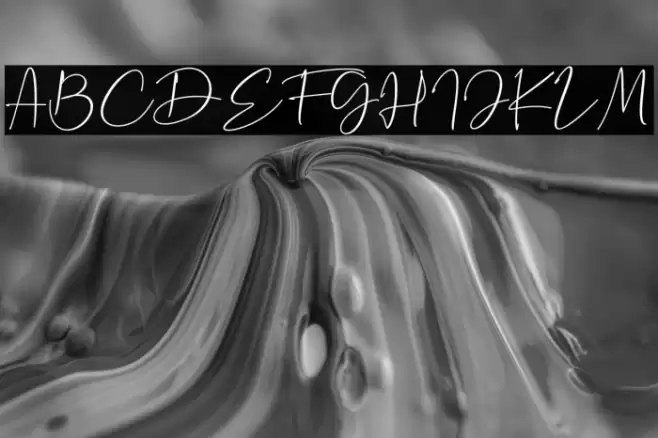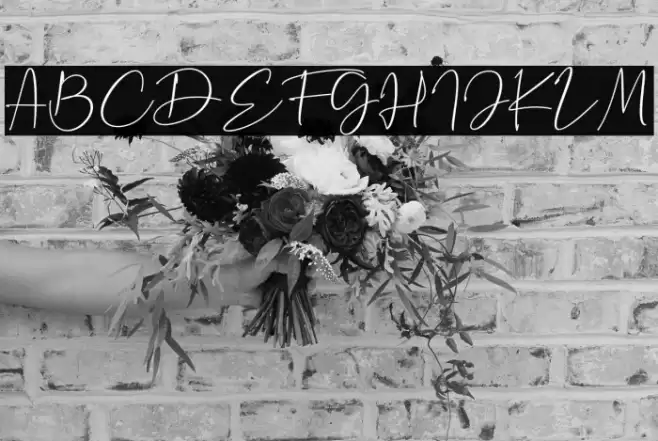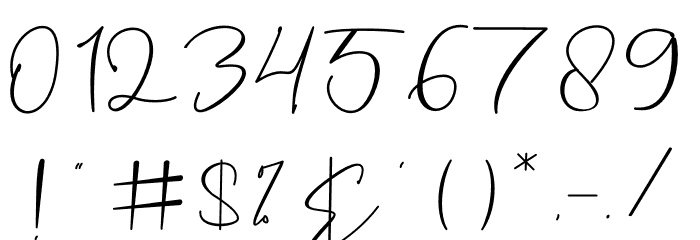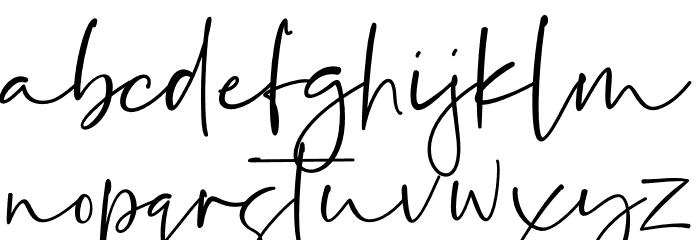
La Paloma Font
La Paloma Description
This font features a lively and expressive handwritten style, characterized by its fluid and dynamic strokes. The uppercase letters are tall and slender, with a slight slant that adds a sense of motion and elegance. The lowercase letters are more rounded and connected, creating a harmonious flow that mimics natural handwriting. Numbers and special characters maintain the same energetic and informal feel, making the font versatile for various creative applications. The overall appearance is casual yet sophisticated, suitable for projects that require a personal touch.
A lively, expressive handwritten font with fluid strokes and a casual elegance from Uncategorized fonts.
- Font: La Paloma
- Proposed Projects: Ideal for greeting cards, personal branding, invitations, and social media graphics.
- Overall Style: Casual, Elegant
- Use Case: Headlines, Logos, Invitations